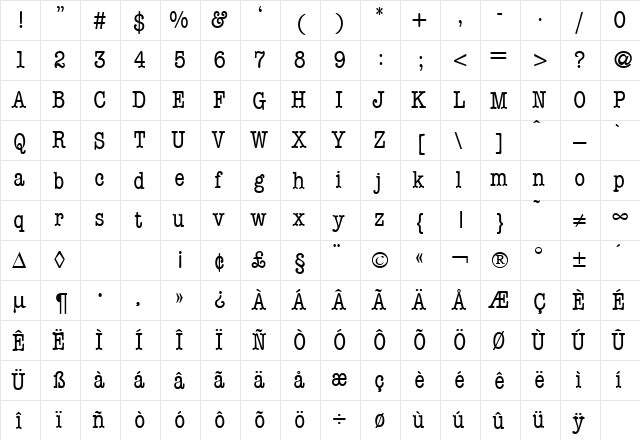
ModernTypewriterCond Regular
Design Context for ModernTypewriterCond Typeface
ModernTypewriterCond brings the precise, column-aligned rhythm of monospaced typography to designs that value technical clarity and systematic order.